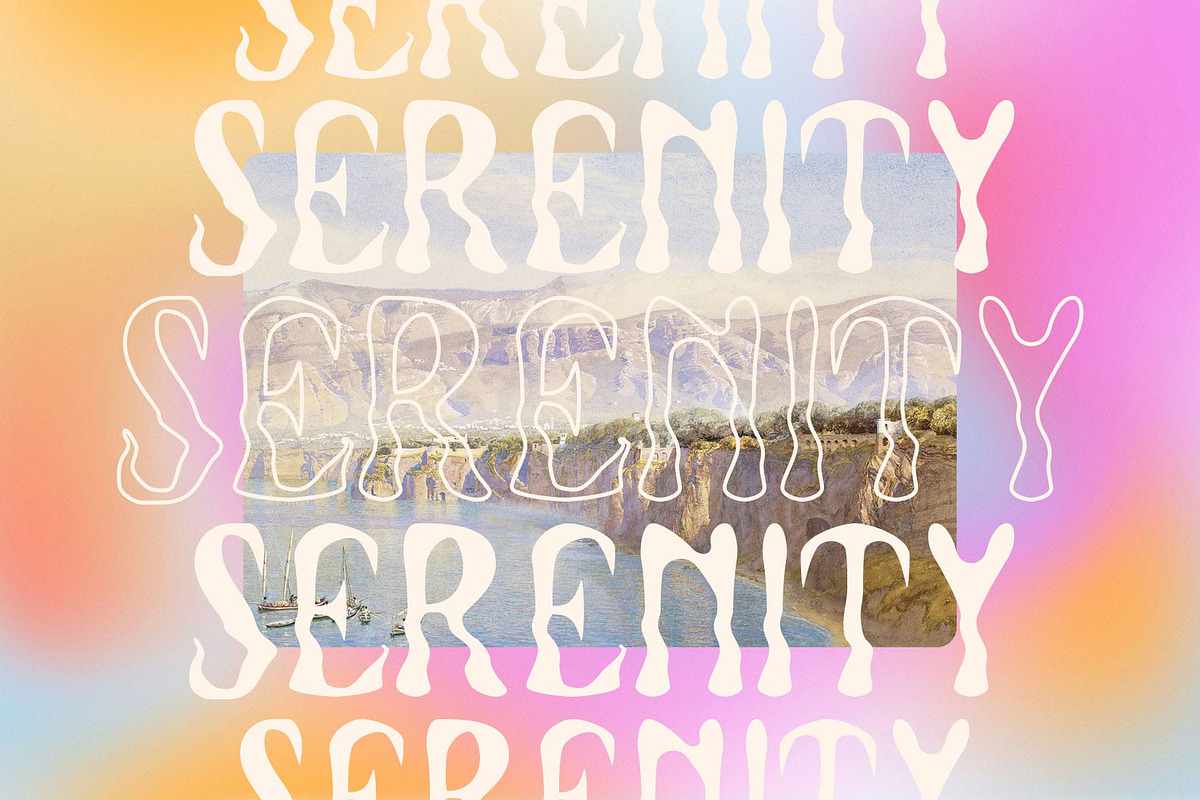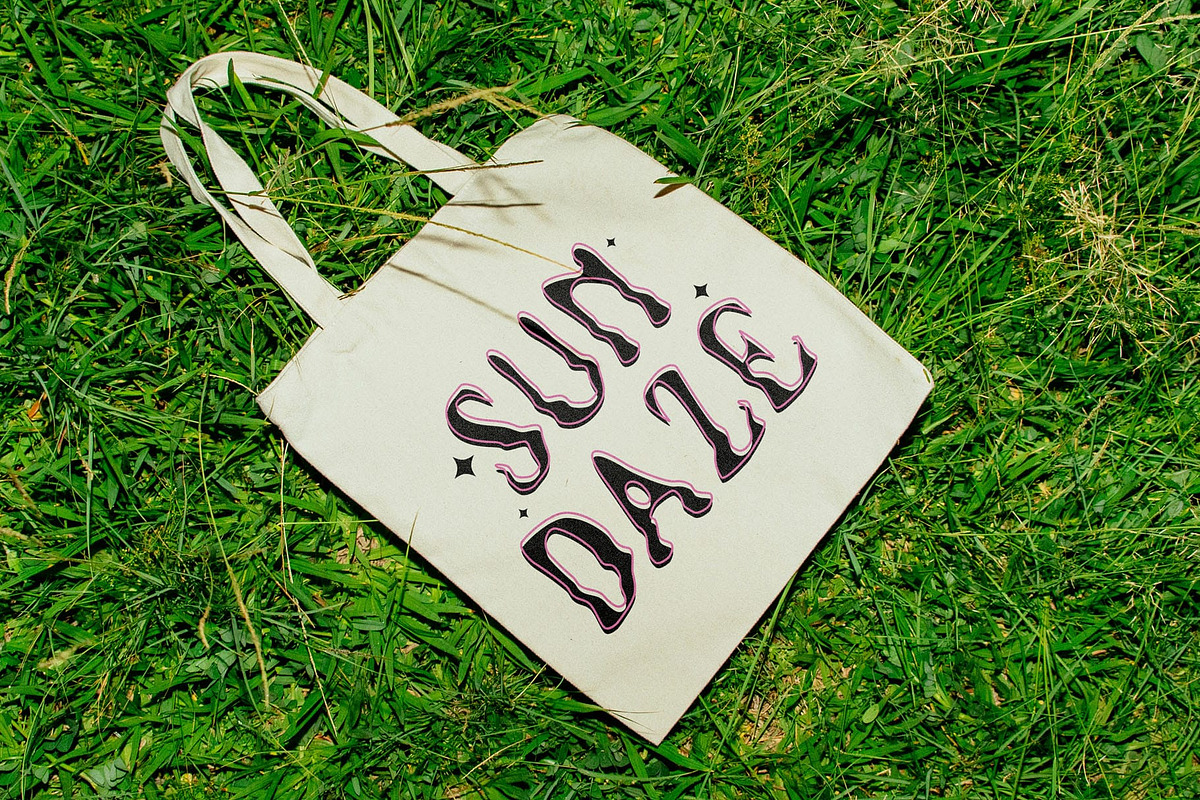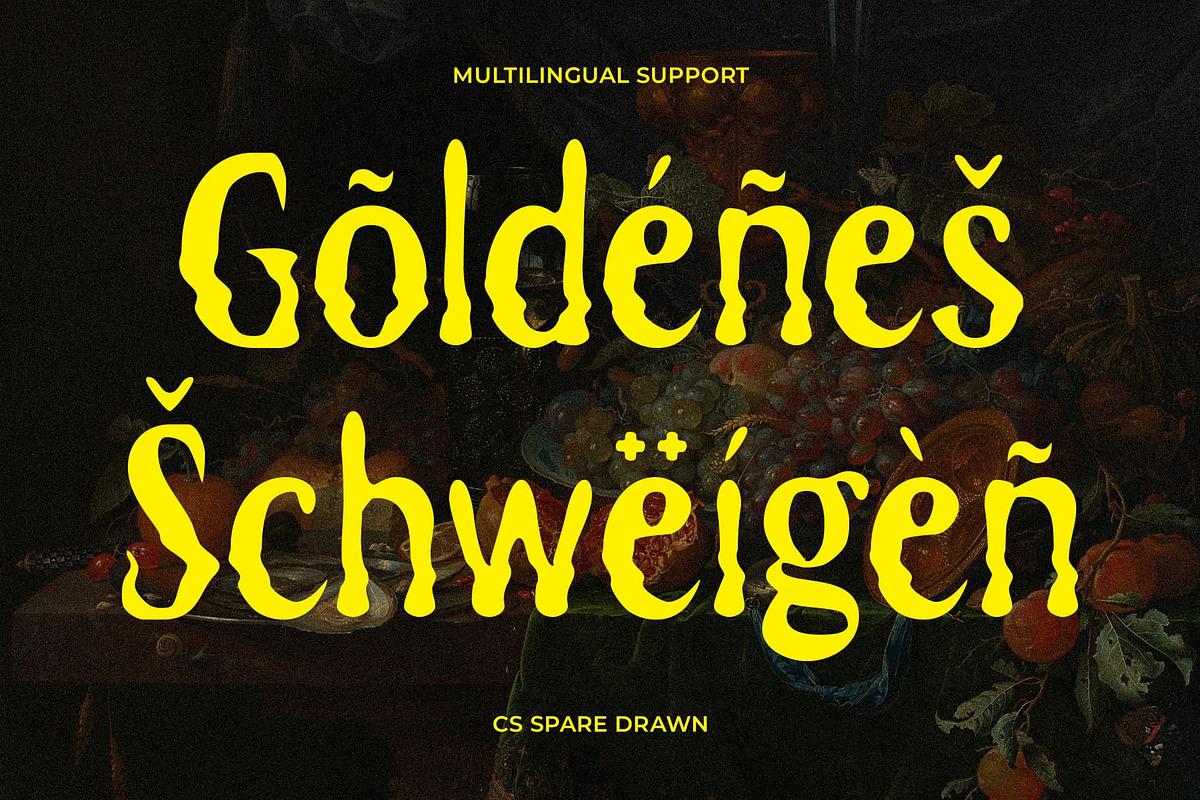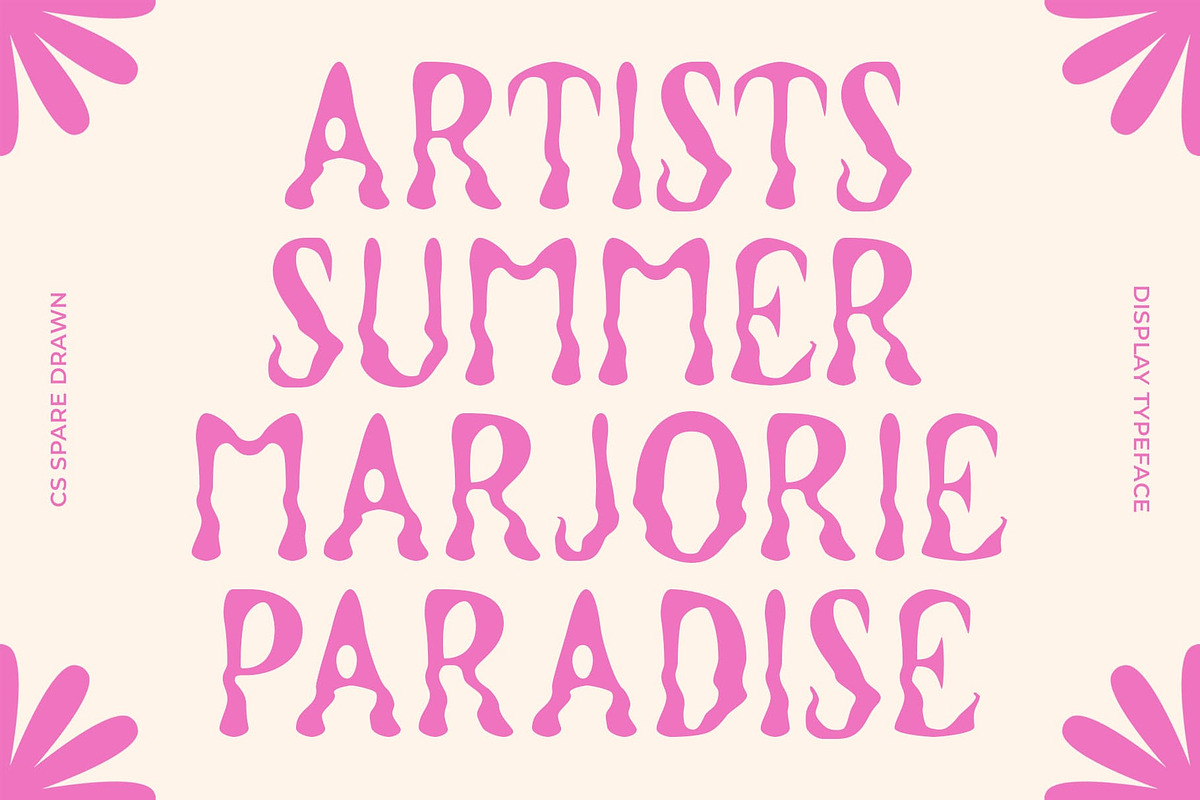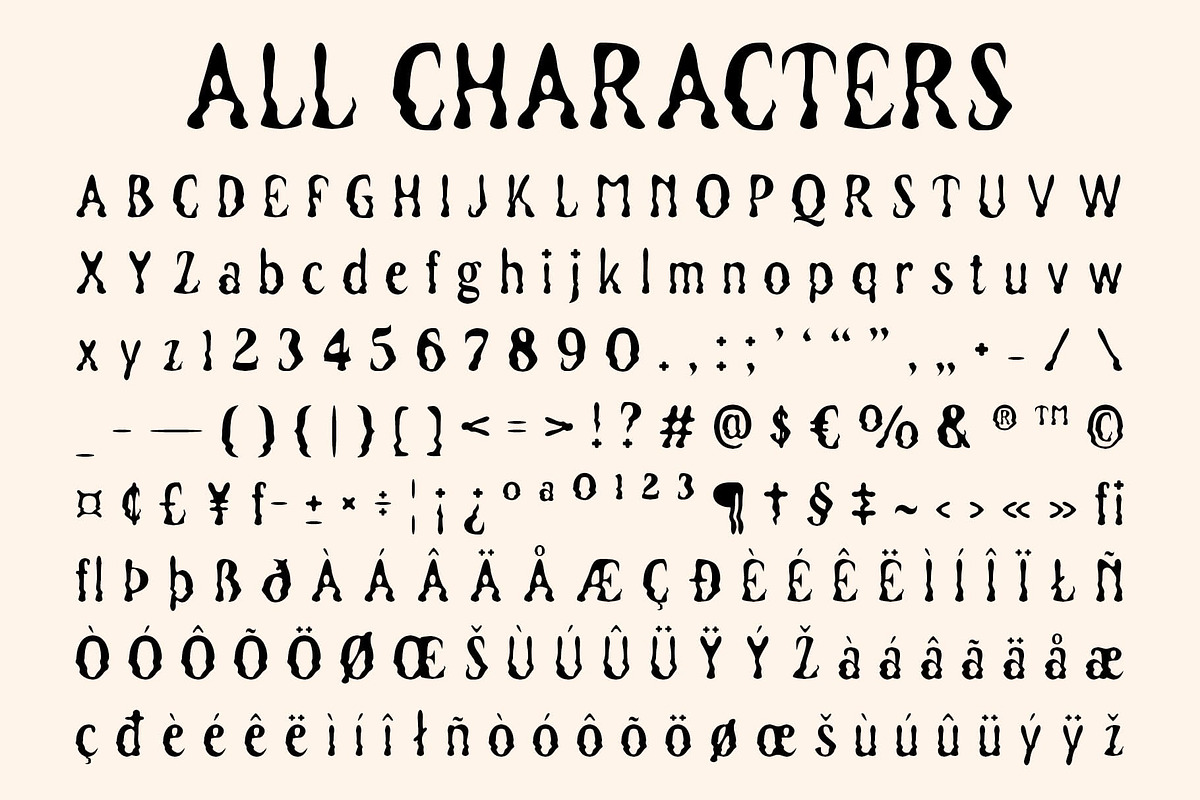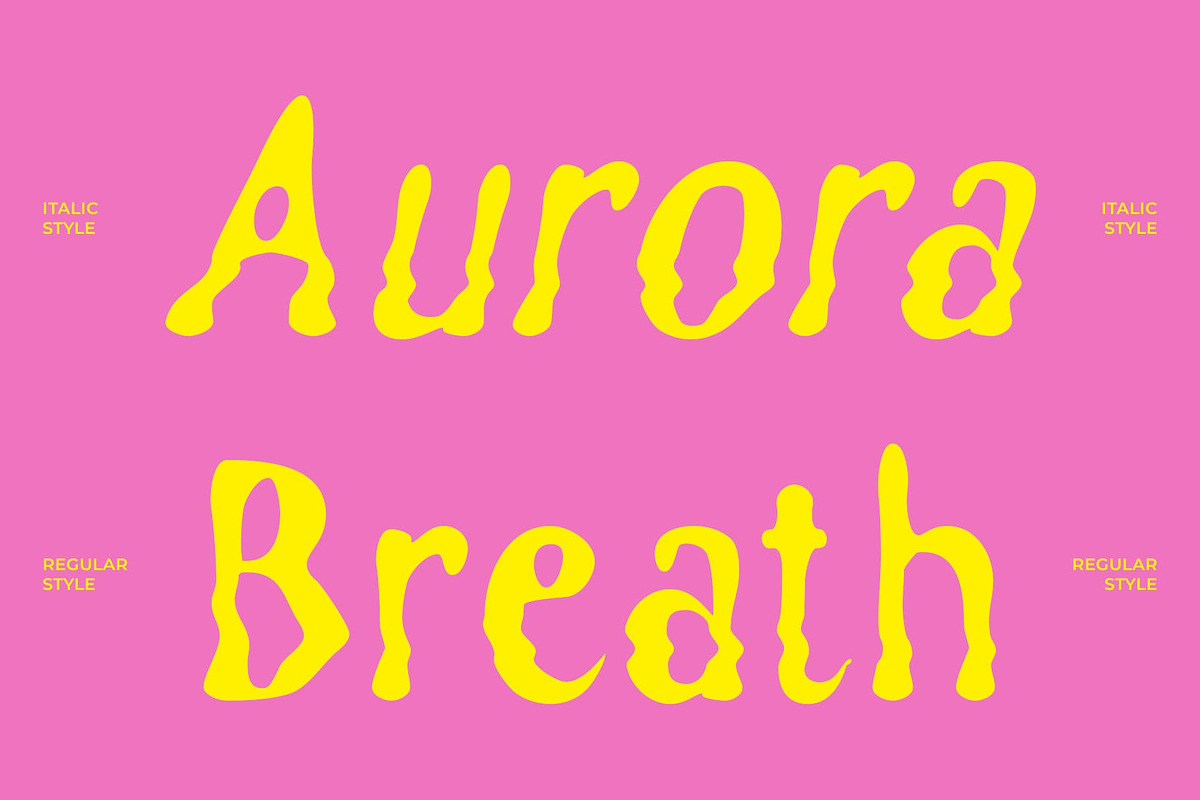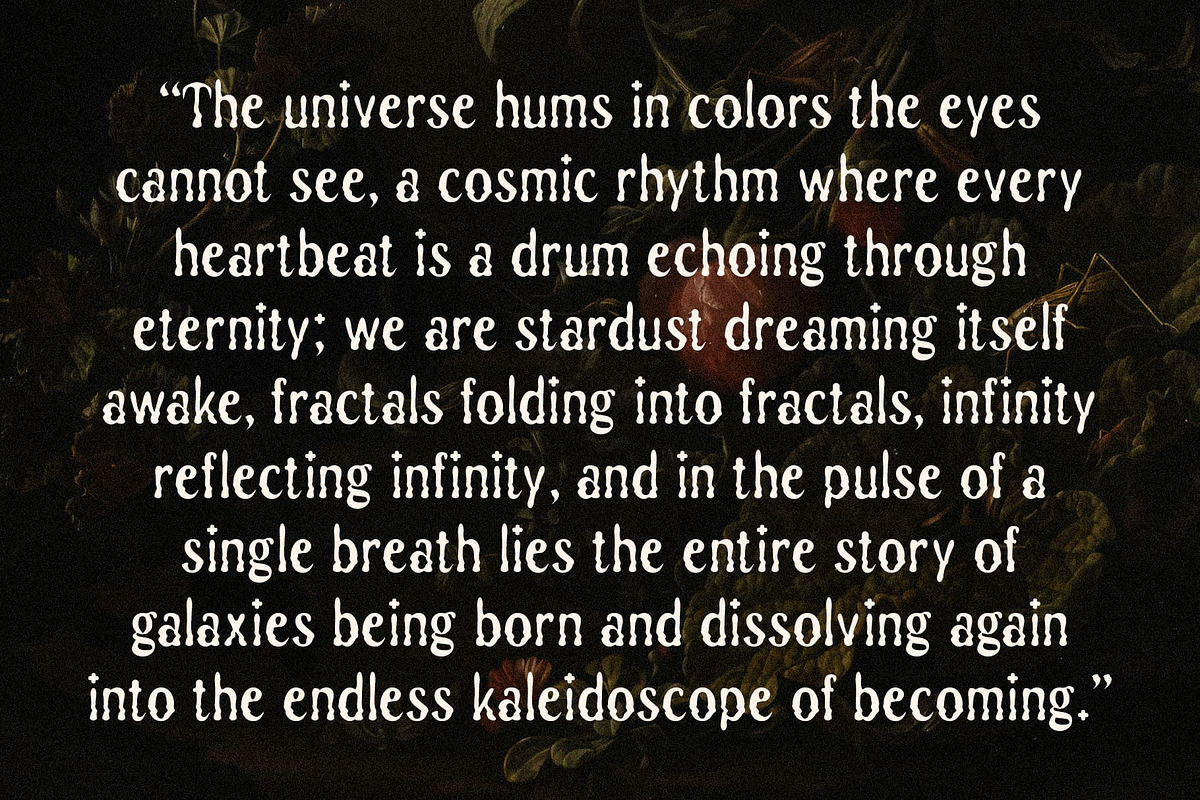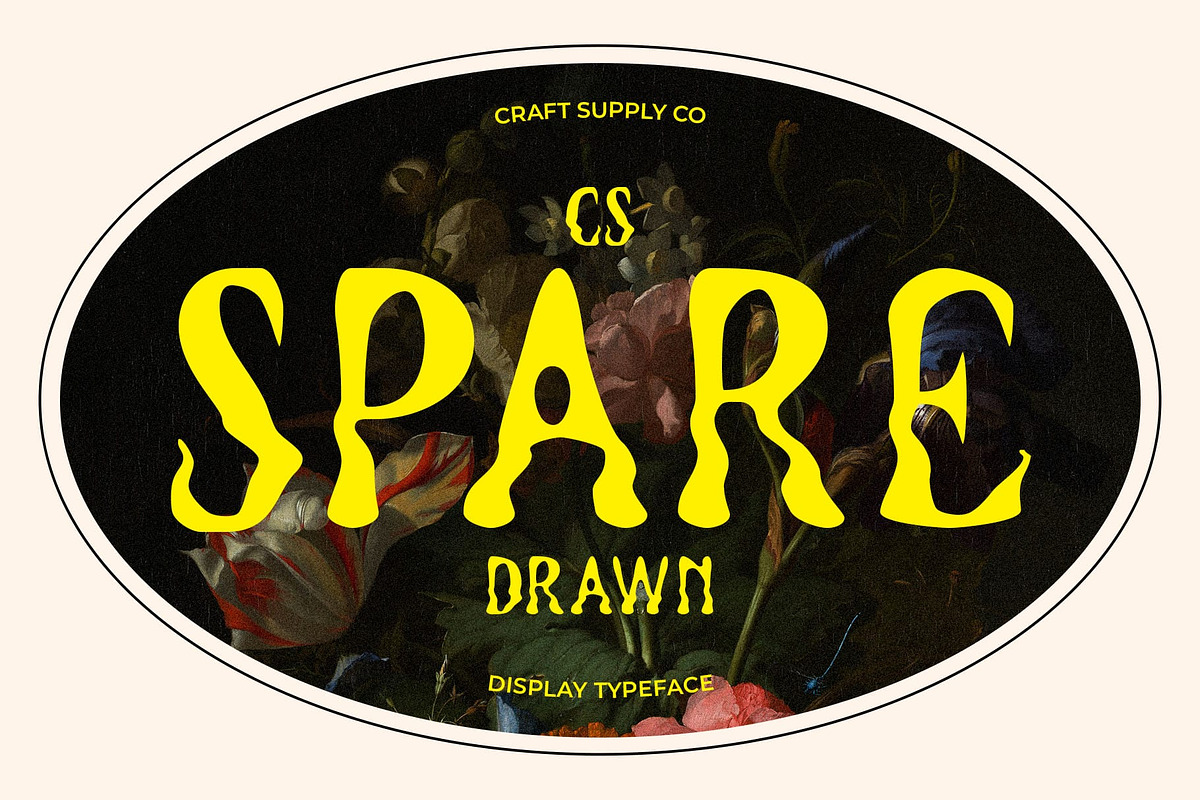
CS Spare Drawn
CS Spare Drawn – Psychedelic Display Font with Trippy Energy
Experimental Psychedelic Style This Font is a display font that thrives on experimentation and imagination. With its trippy aesthetic and psychedelic curves, it transforms ordinary text into a visual experience. Its flowing shapes and unconventional letterforms radiate movement, giving every design a dynamic and expressive look.
Hand-Drawn Character for Playful Expression The hand-drawn detail gives font an unmistakable personality. Instead of rigid, mechanical precision, the font celebrates imperfections and organic strokes. This handmade quality enhances its playful mood, making it a natural fit for projects that need a creative, artistic, or free-spirited vibe.
Perfect for Music and Culture Projects Designed for bold expression, this font excels in music-related designs, from psychedelic band posters to funky album covers. It also adds an artistic edge to cultural branding, editorial spreads, or fashion visuals. Wherever it’s used, the font becomes a central element that captures attention and sets the mood.
Versatility in Creative Design While it leans into its psychedelic roots, CS Spare Drawn is more than a niche font. It adapts well to experimental branding, vibrant posters, and playful editorials. Its unique curves and drawn texture ensure that no matter the medium digital or print your message will feel alive, imaginative, and impossible to ignore.